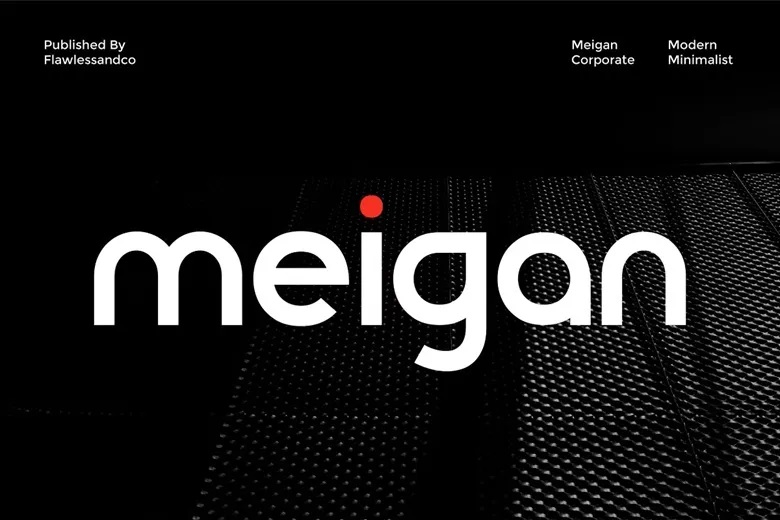
Meigan Font
Meigan is a modern sans serif font designed to give your brand a clean, professional look. With its simple lines, even spacing, and geometric shapes, Meigan is easy to read and brings a fresh, modern feel.
Meigan’s versatile style works well for many professional projects, from branding to digital design. Its simple yet refined look helps your business make a confident and trustworthy impression.
Meigan Sans Serif Font